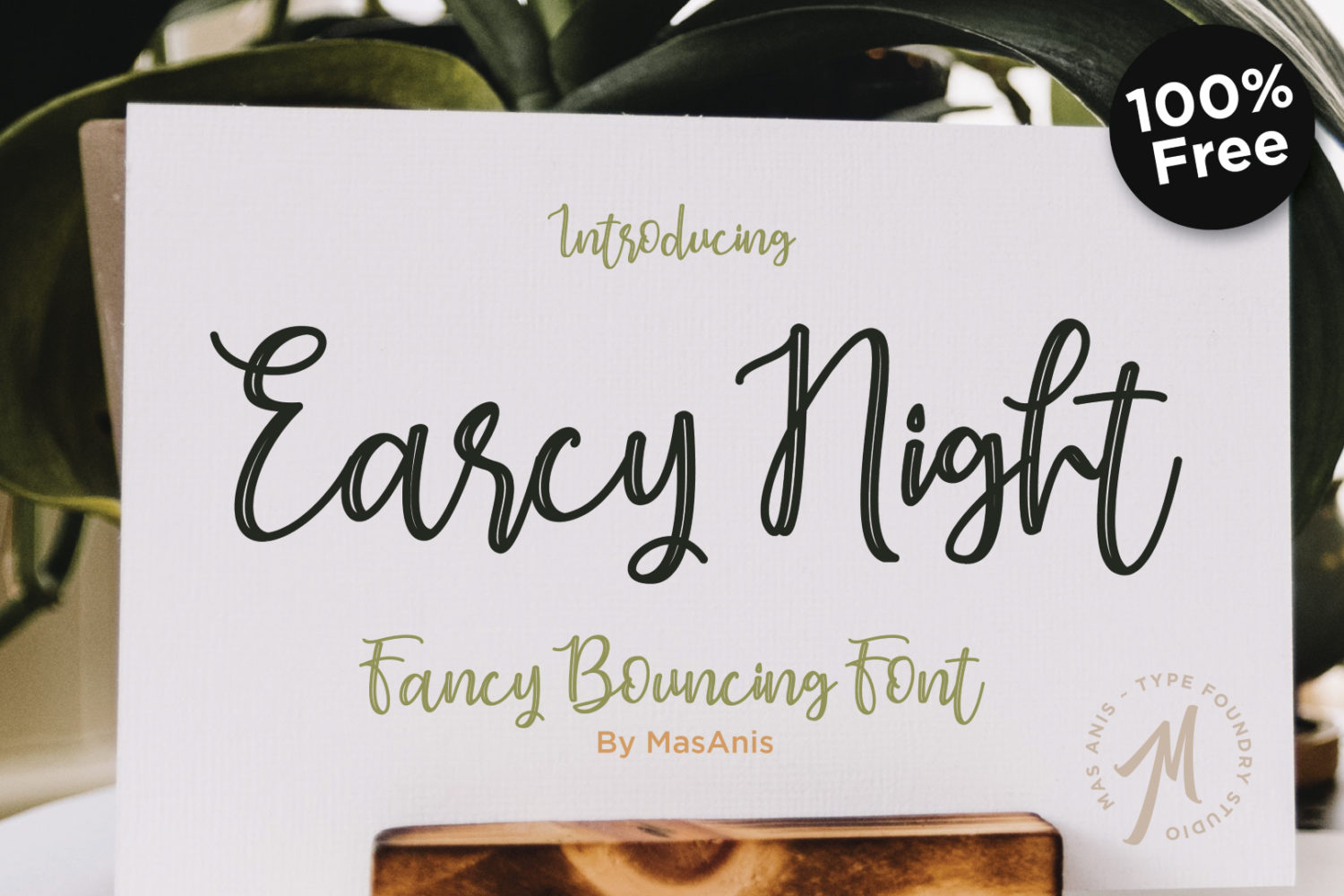
Earcy Night Free Font
Earcy Night free font is a modern brush font by Mas Anis Studio. This font comes with flow and texture that surely makes the font distinct in any good way possible. Moreover, it works great on many kinds of a design project, from logo, branding, to prints. So, download now and create something beautiful!